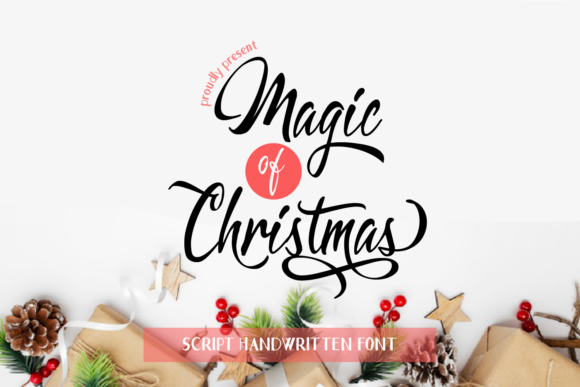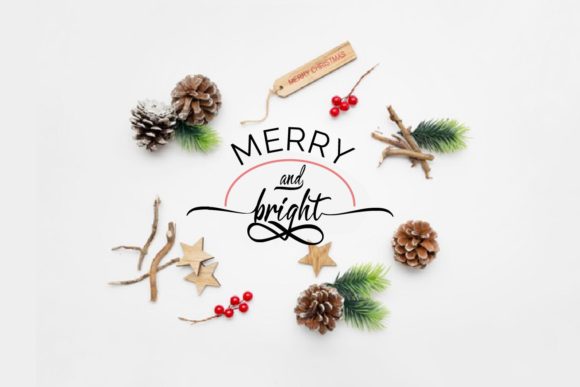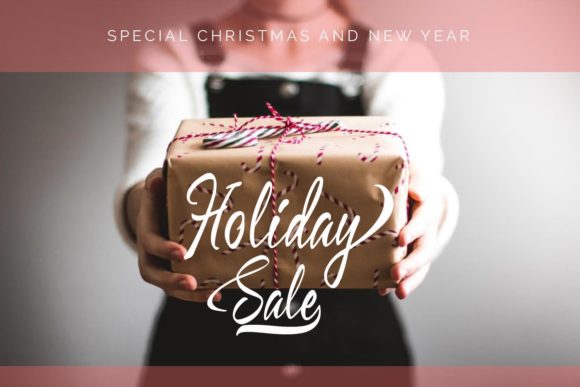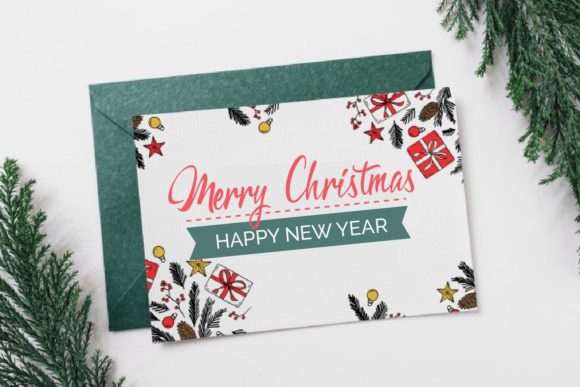
About Magic of Christmas Font
Magic of Christmas is a charming and elegant handwritten font. It is ideal for holiday-themed greeting cards and for any crafting project that requires a romantic touch.